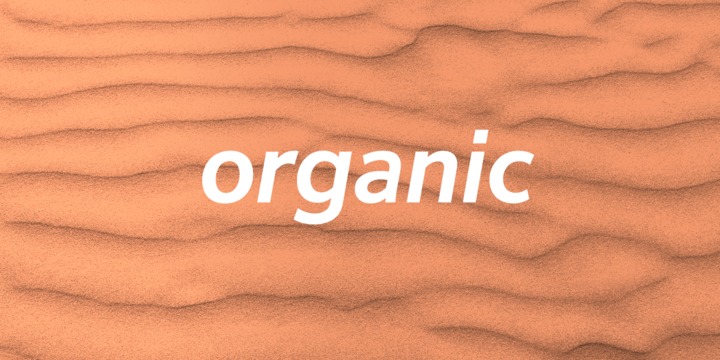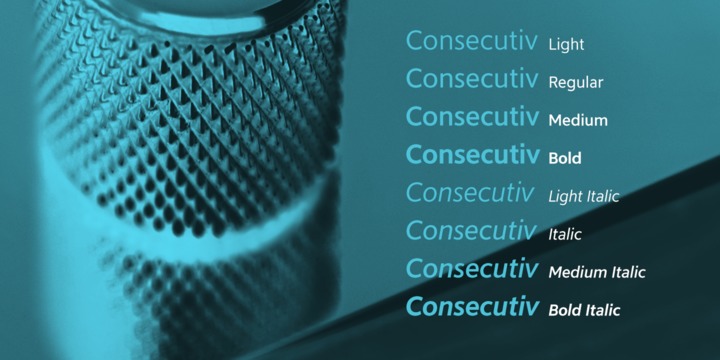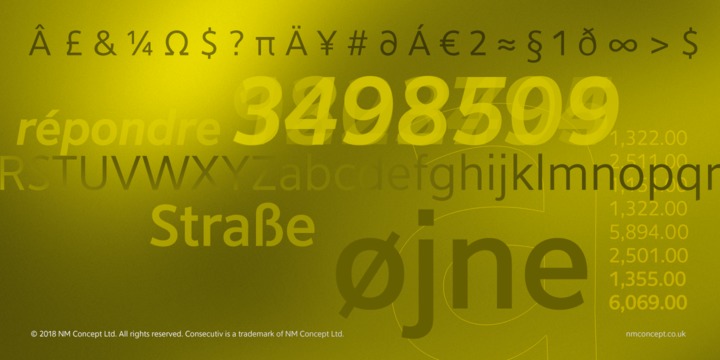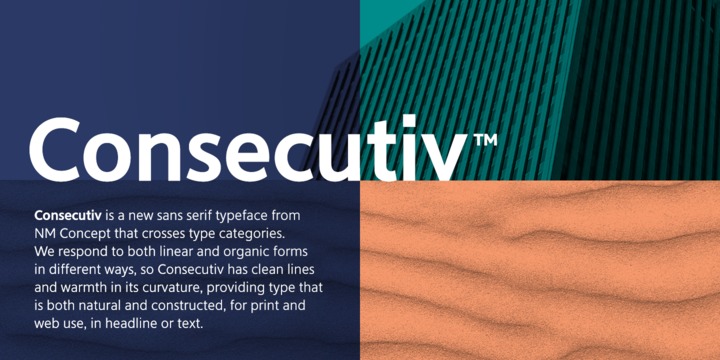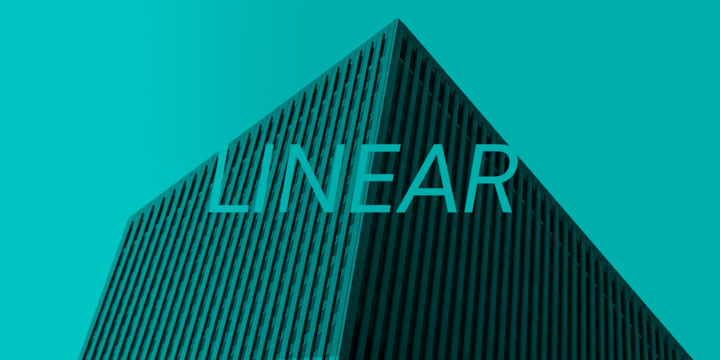
Consecutiv Font
Consecutiv™ is a new sans serif typeface from NM Concept. Consecutiv has clean lines and warmth in its curvature. Available in 4 weights and their italics, all Consecutiv fonts provide an Adobe Latin 1 character set, with proportional and tabular lining figures and additional math symbols.
Combining linear and organic forms, Consecutiv provides type that is both natural and constructed, for print and web use, in headline or text.